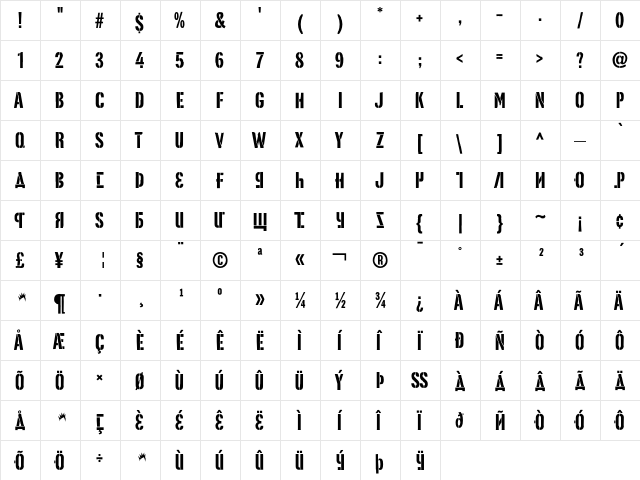
Gazz Stencil
Gazz borrows the utilitarian aesthetic of stencil lettering, with its characteristic cutaways and no-frills construction lending an industrial edge.
Ideal for industrial branding, streetwear, military-adjacent aesthetics, and urban signage projects.
Pro Tip: Pair Gazz with raw, utilitarian design elements — exposed concrete textures, flat colour, and minimal ornamentation suit it well.